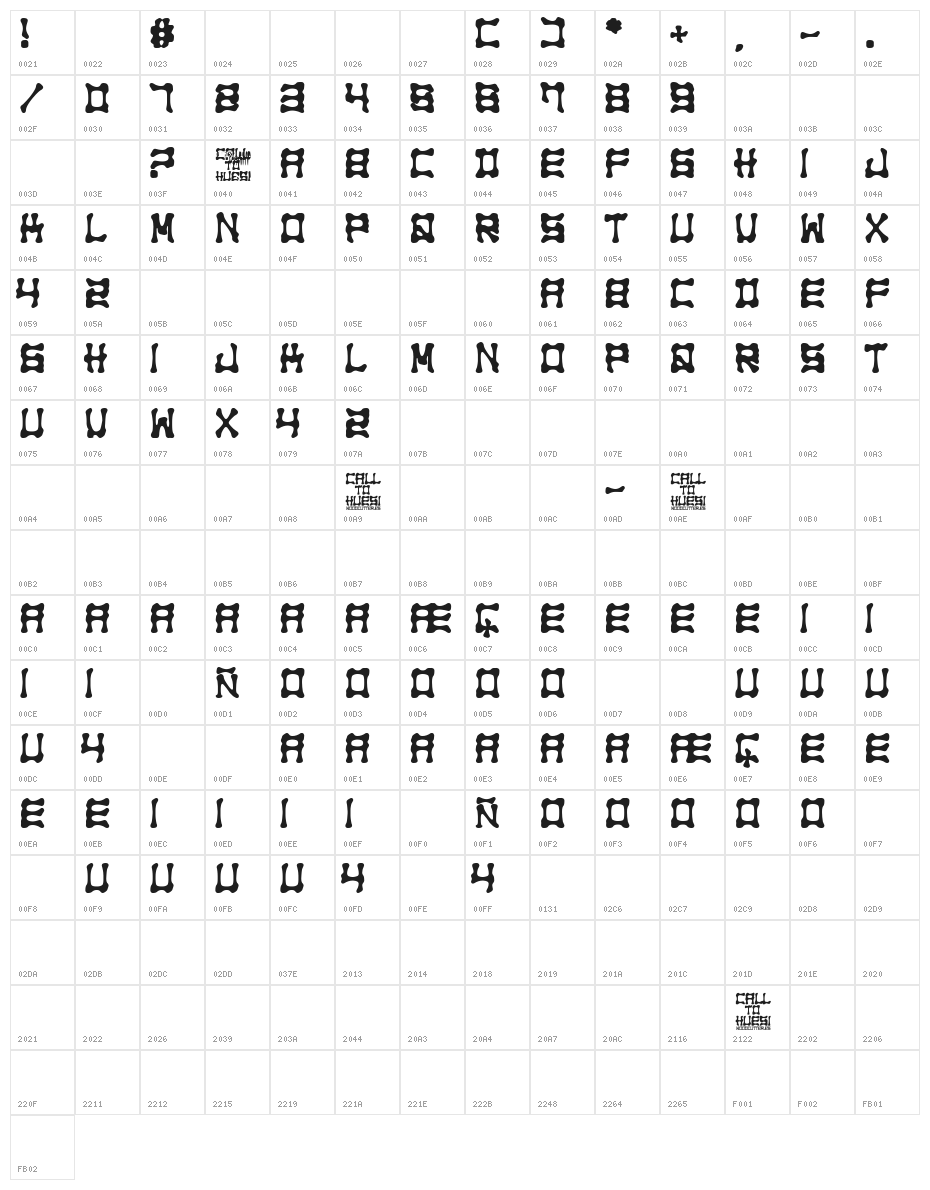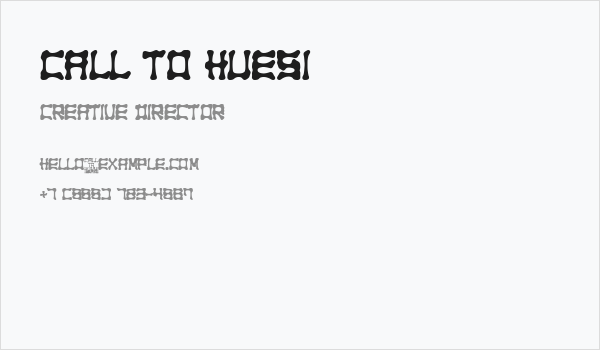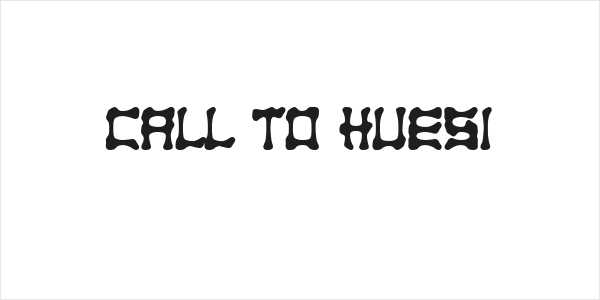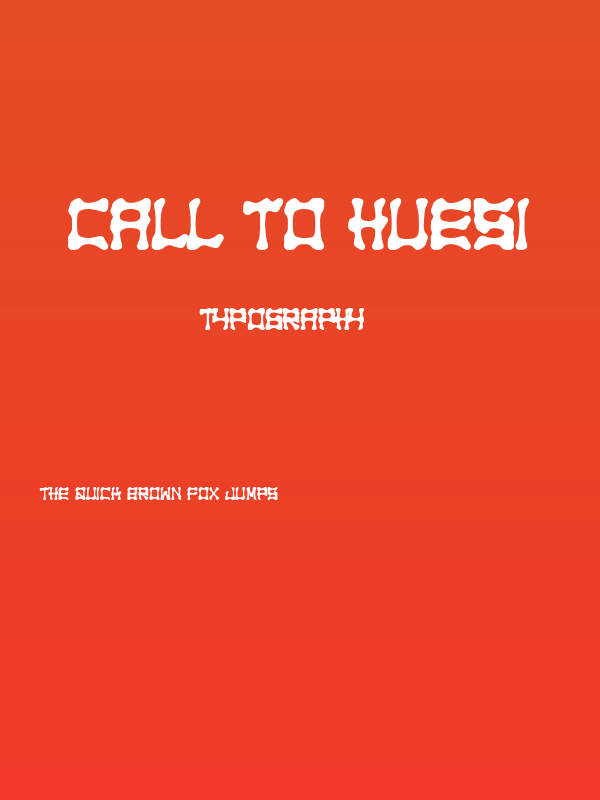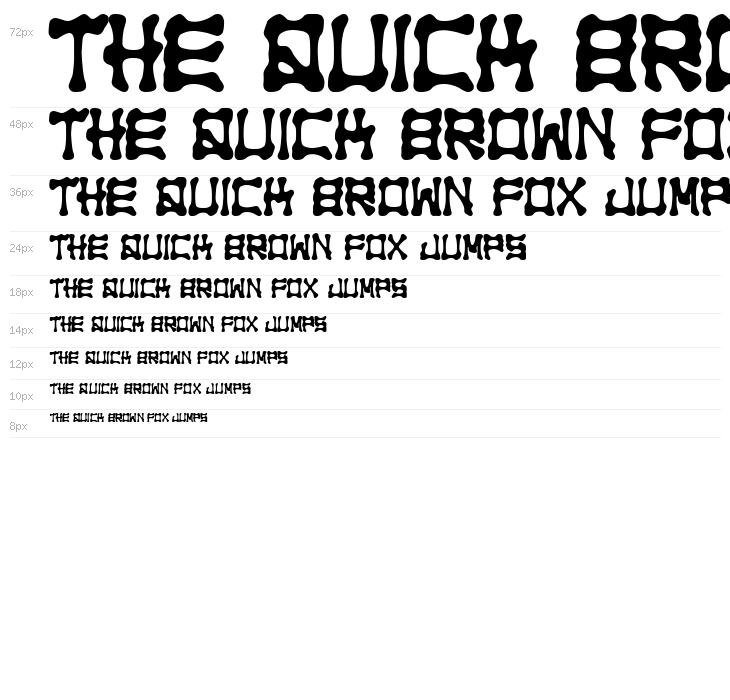
Call to Huesi Font
Call to Huesi Description
This font features a bold and organic design, characterized by its thick, irregular strokes that create a sense of movement and fluidity. The characters are uniquely shaped with a playful, almost liquid-like appearance, making them stand out with their distinctive style. The font's boldness is consistent throughout, offering a strong visual impact. Its unconventional form is reminiscent of abstract art, providing a creative and artistic flair. The overall design is eye-catching and memorable, suitable for projects that require a touch of creativity and uniqueness.
| Use Case | Logos, Posters, Artistic Branding |
| Proposed Projects | Ideal for creative projects such as album covers, posters, branding for artistic ventures, and unique logo designs. |